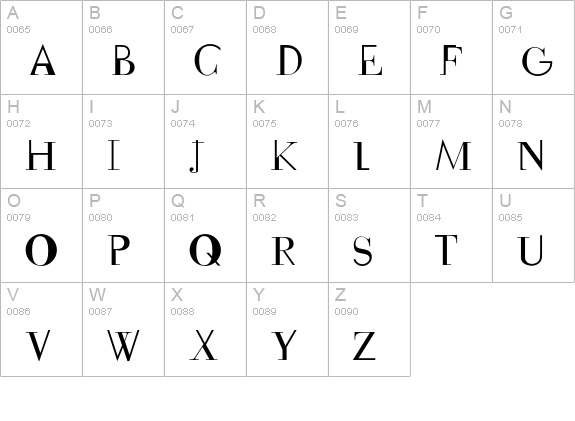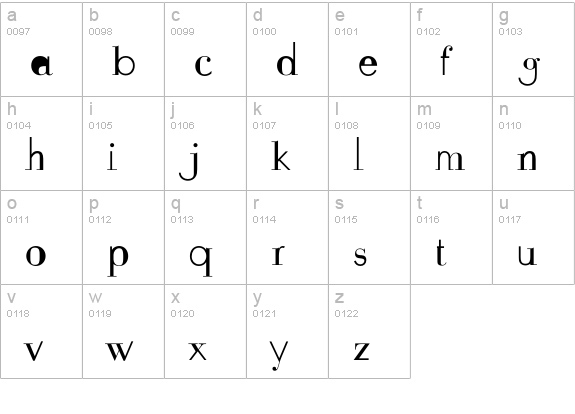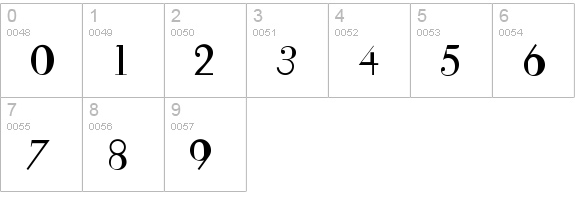
FudoniOne Font Details
FudoniOne is a sleek and elegant font that exudes sophistication and style. Its refined lines and graceful curves make it perfect for a wide range of design projects, from branding to editorial layouts. The timeless appeal of FudoniOne adds a touch of class to any creative endeavor, making it a versatile choice for designers looking to make a statement. And the best part? FudoniOne is available for free download at FontsMarket.com. This means that you can elevate your designs with this exquisite font without breaking the bank. Don't miss out on the opportunity to enhance your projects with the beauty and charm of FudoniOne – download it today and let your creativity shine!